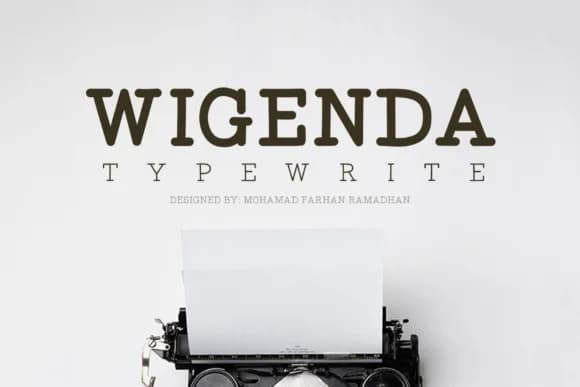
Strong geometric serifs anchor every letter in this font, evoking the decisive mechanical character of vintage typewriter keys while maintaining a sleek, contemporary polish. Mofr24 Studio designed Wigenda Typewrite to sit comfortably in the space between retro nostalgia and refined modernity, where visual personality enhances rather than compromises legibility or sophistication.
Editorial design is precisely where this typeface truly excels. Literary magazine mastheads, book jacket headlines, and feature article typography all gain visual authority from its purposeful character. Beyond publishing, the mechanical integrity translates beautifully into hospitality and retail applications: restaurant menu headers, craft cafe signage, upscale food packaging labels, and luxury beverage branding all benefit from its distinctive voice. Wedding invitation suites, vintage poster projects, and boutique product branding represent equally compelling uses, particularly when you want both elegance and retro warmth in a single typeface.
This is the essential font for designers and creative directors building premium projects with genuine storytelling requirements. You'll appreciate it in any context where personality and refinement need to balance each other meaningfully. It performs beautifully across editorial applications, hospitality branding, special occasion stationery, and anywhere restrained elegance meets mechanical warmth. Grab Wigenda Typewrite from Creative Fabrica and add it to your collection.
- Sturdy, Confident, Typewrite
Wigenda Typewrite Font is a slab serif font that shines as a display or heading face. Pair it with a clean sans-serif or serif font for body text — the contrast creates a clear hierarchy while the two styles stay balanced and easy to read.